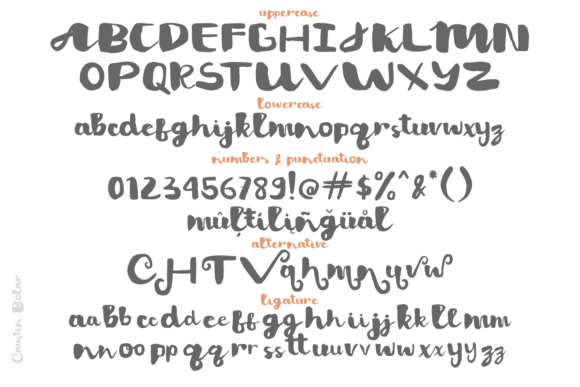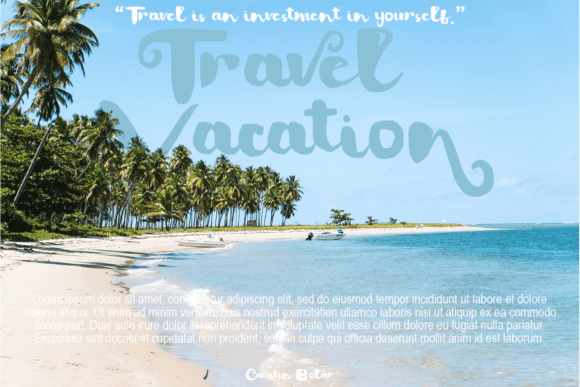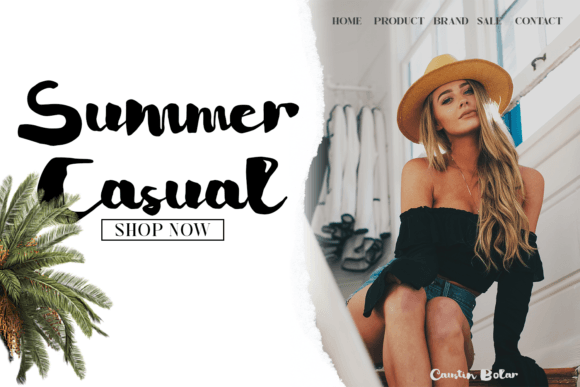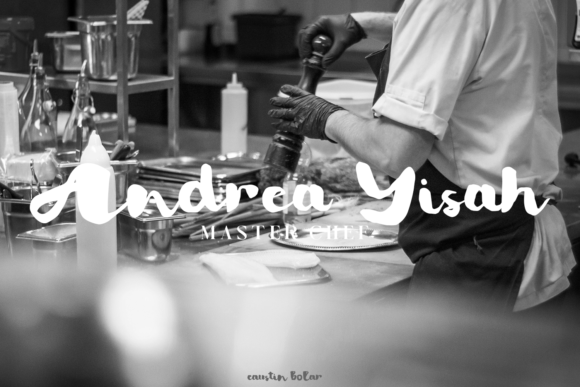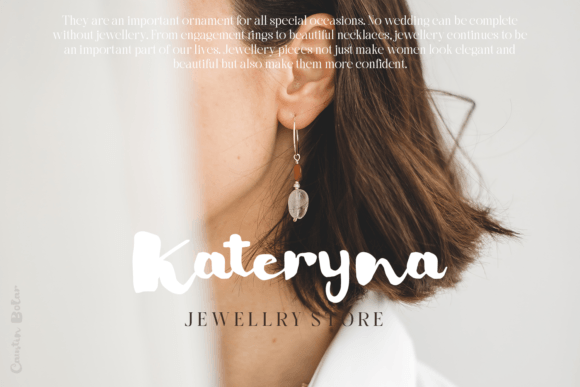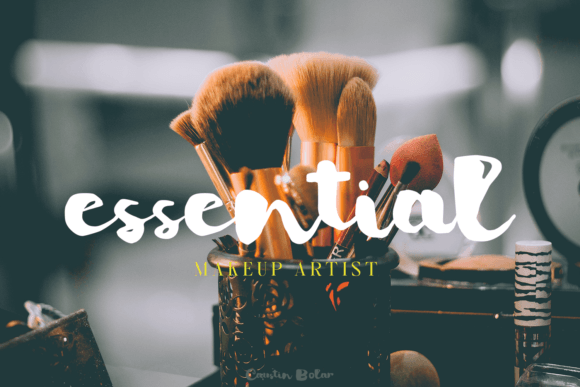
Unlock Your Creativity with Caustin Bolar Font
Have you ever been working on a design project, and suddenly, you’re stuck? The perfect font seems elusive, and your ideas aren’t translating to the screen. That’s where Caustin Bolar Font comes in – a bold brush script designed to take your creative vision to the next level.
Caustin Bolar Font is a versatile and stylish font that can be easily paired with a wide range of design projects. Whether you’re creating a logo, branding materials, or marketing campaigns, this font is sure to make your designs stand out. Its unique blend of modern and classic elements makes it a valuable asset for any designer looking to add a touch of sophistication and elegance to their work.
- Unique Characteristics: A modern, elegant script font with a unique blend of sophistication and playfulness, suitable for invitations, wedding stationery, and other special occasions
Review of Caustin Bolar Font
Overall, I found the Caustin Bolar Font to be a unique and versatile choice for designers. ✨ One of the things that works well is its ability to adapt to various design contexts. Whether you’re creating a modern logo, a vintage-inspired poster, or a minimalist digital interface, Caustin Bolar Font seems to fit right in. Its clean lines and subtle flair make it an excellent choice for designers looking to add a touch of sophistication to their projects.
Another advantage of this font is its extensive character set, which includes a wide range of languages and special characters. ✨ This makes it an excellent choice for designers working on global projects or creating content that requires a high degree of linguistic flexibility.
- ⚠️ Limited expressiveness: While Caustin Bolar Font is versatile, it may not be the best choice for designers looking to create bold, attention-grabbing headlines or text that requires a lot of emotional depth.
- ⚠️ Some characters may not be optimized for digital display: I noticed that some characters, particularly those with subtle flourishes, may not display as smoothly on digital screens.
In conclusion, Caustin Bolar Font is a solid choice for designers who value adaptability and subtlety. While it may not be the best fit for every project, it’s definitely worth considering for designs that require a touch of elegance and sophistication.
For the best results, use the Caustin Bolar font in headings and titles to create a visually appealing contrast with body text.
The Caustin Bolar font is ideal for:
Headings and titles in design projects.
Business cards and promotional materials.
Wedding invitations and event materials.